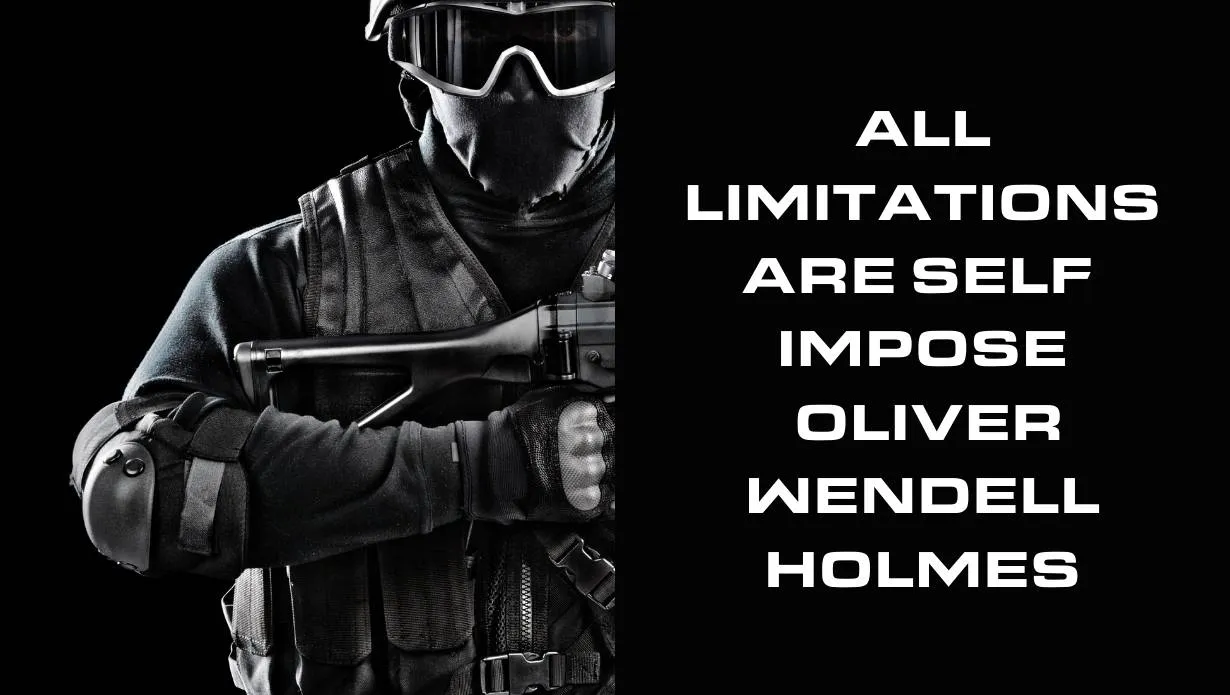
Today we are sharing an amazing font that is known by the name of Modern Warfare Font. This font style design can be recognized by its name. Modern Warfare is a game of series of Call of Duty. This game is a first-person shooting game that is very popular around the world. The game was published by Activision.
The font used in the game looks really attractive and it is bring used by many designers. This font style design belongs to the category of Sans Serif typeface. NubeFonts have taken a charge of creating this awesome font style.